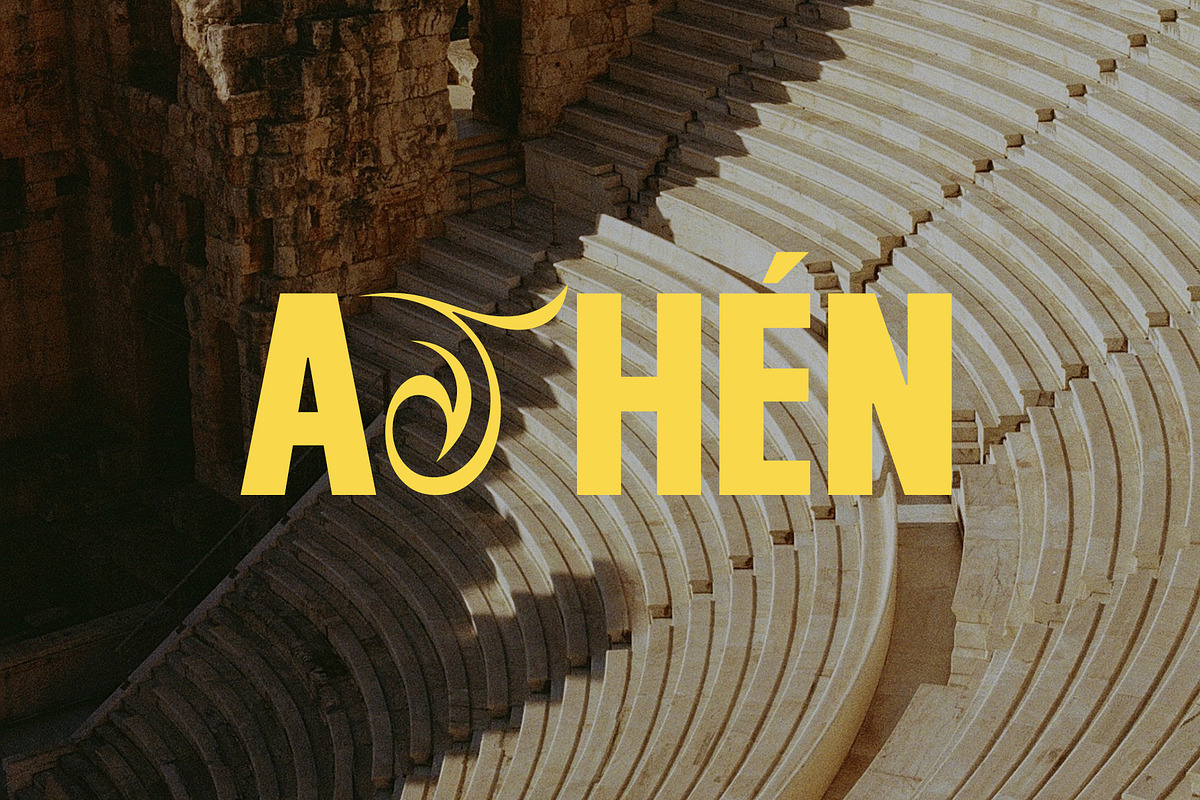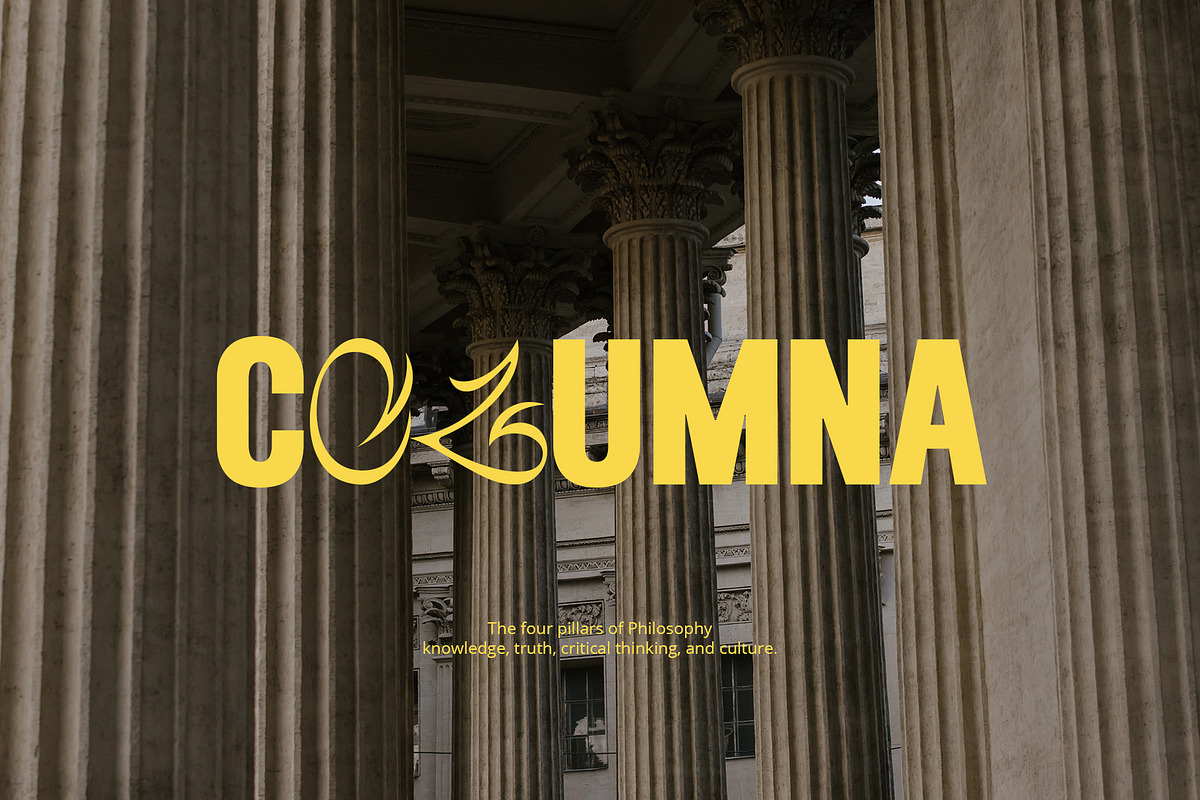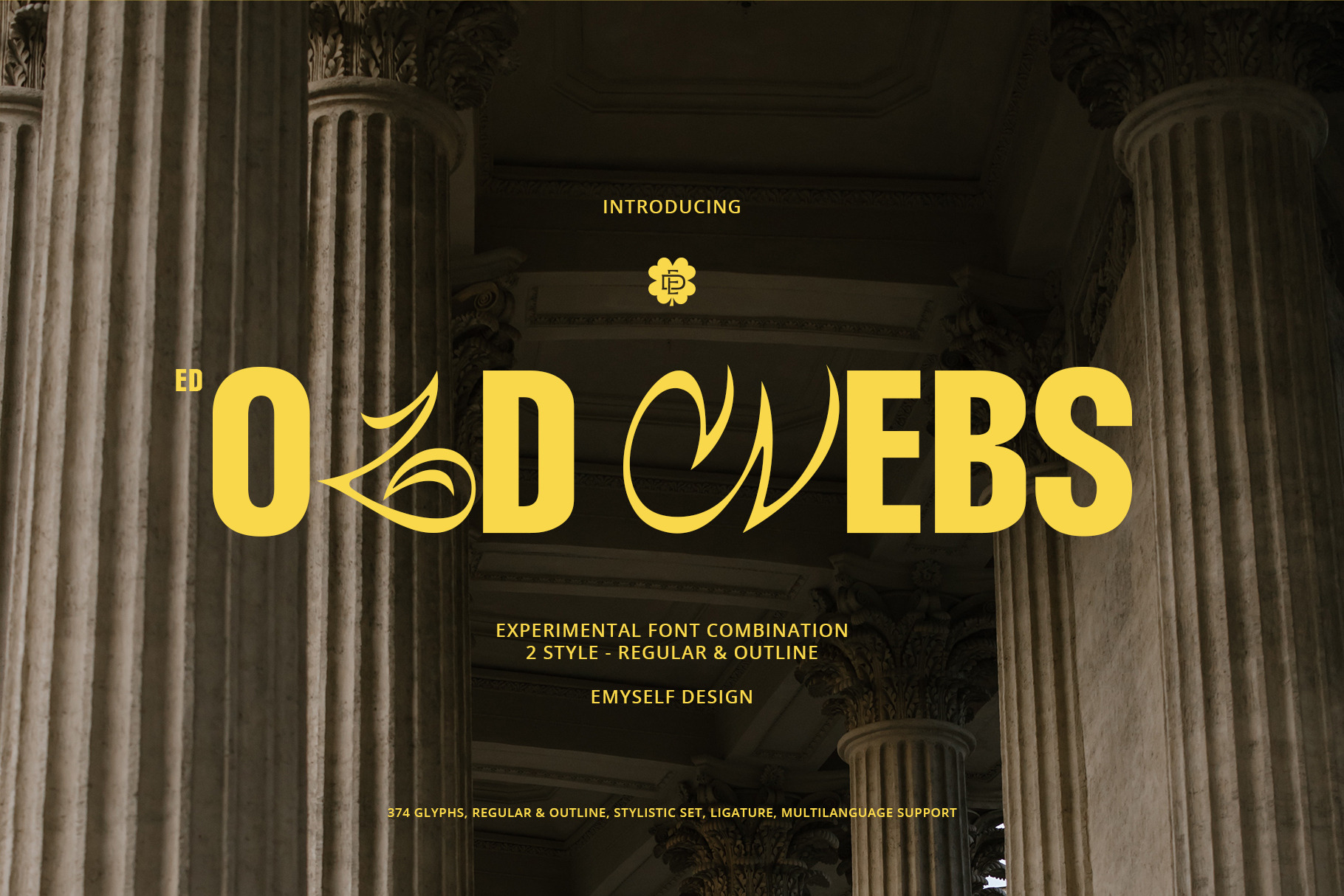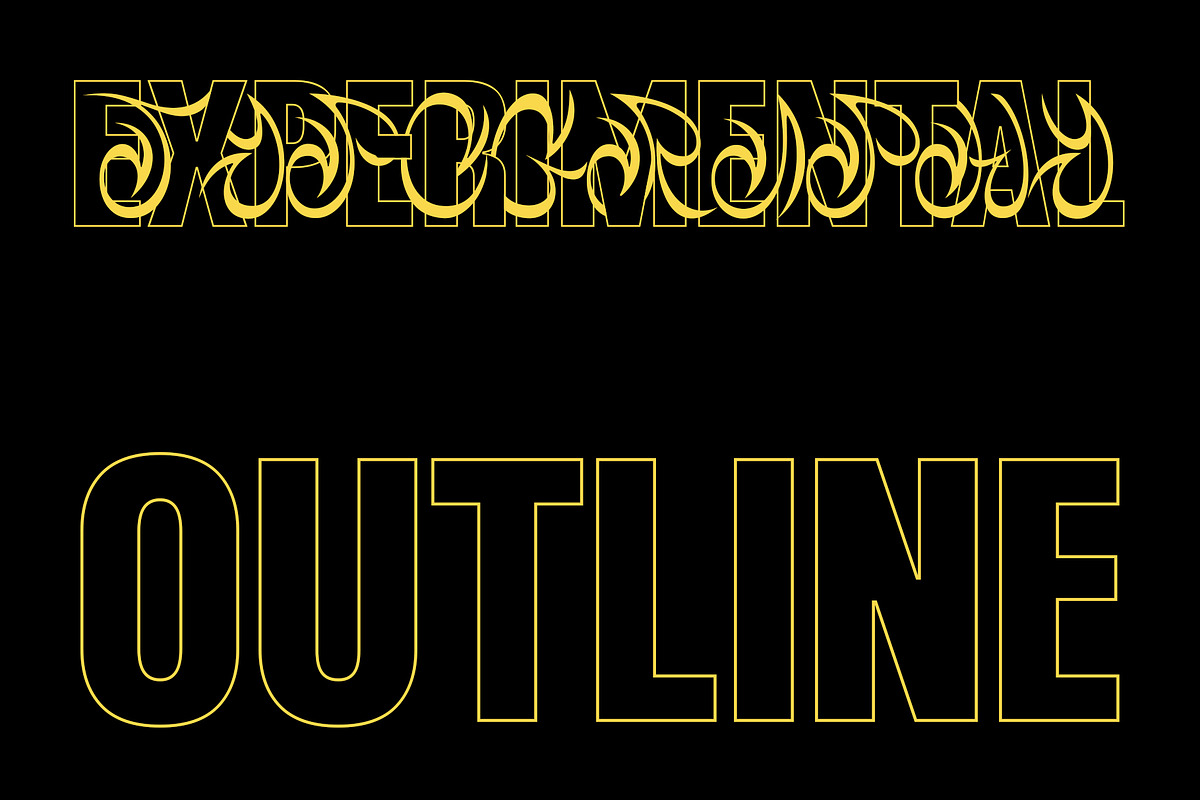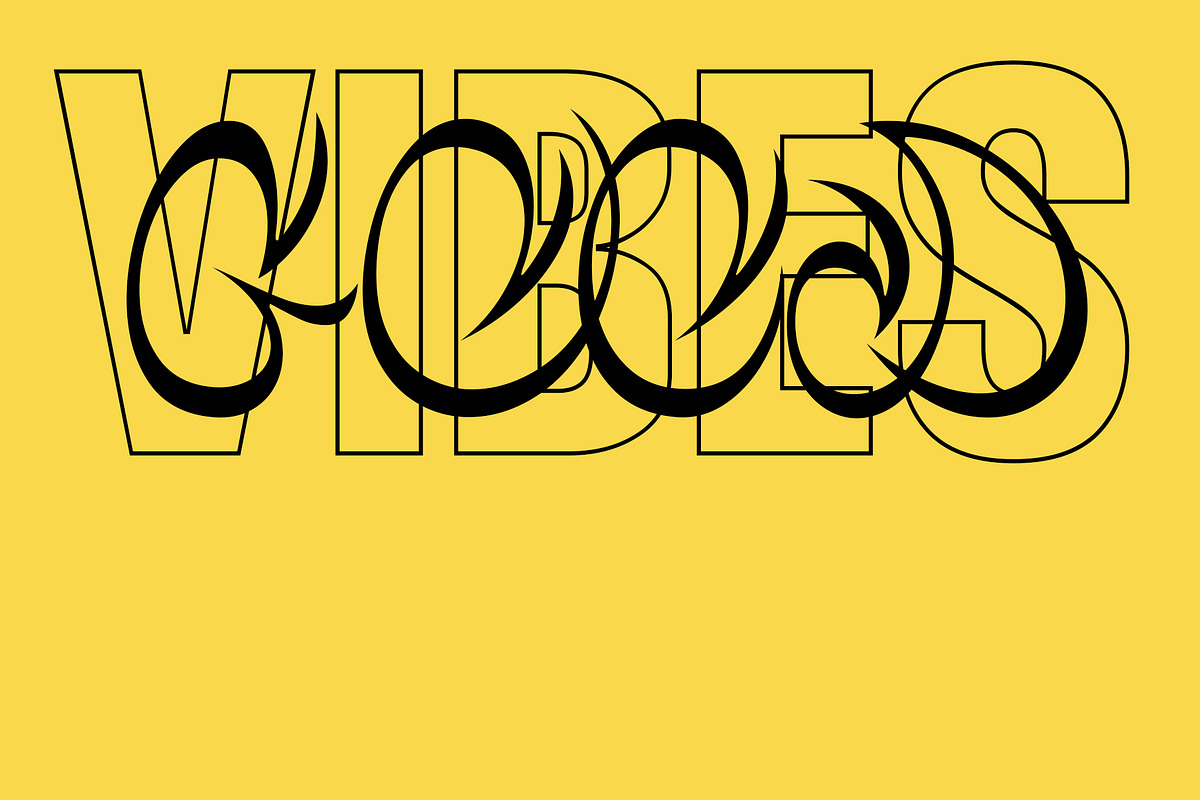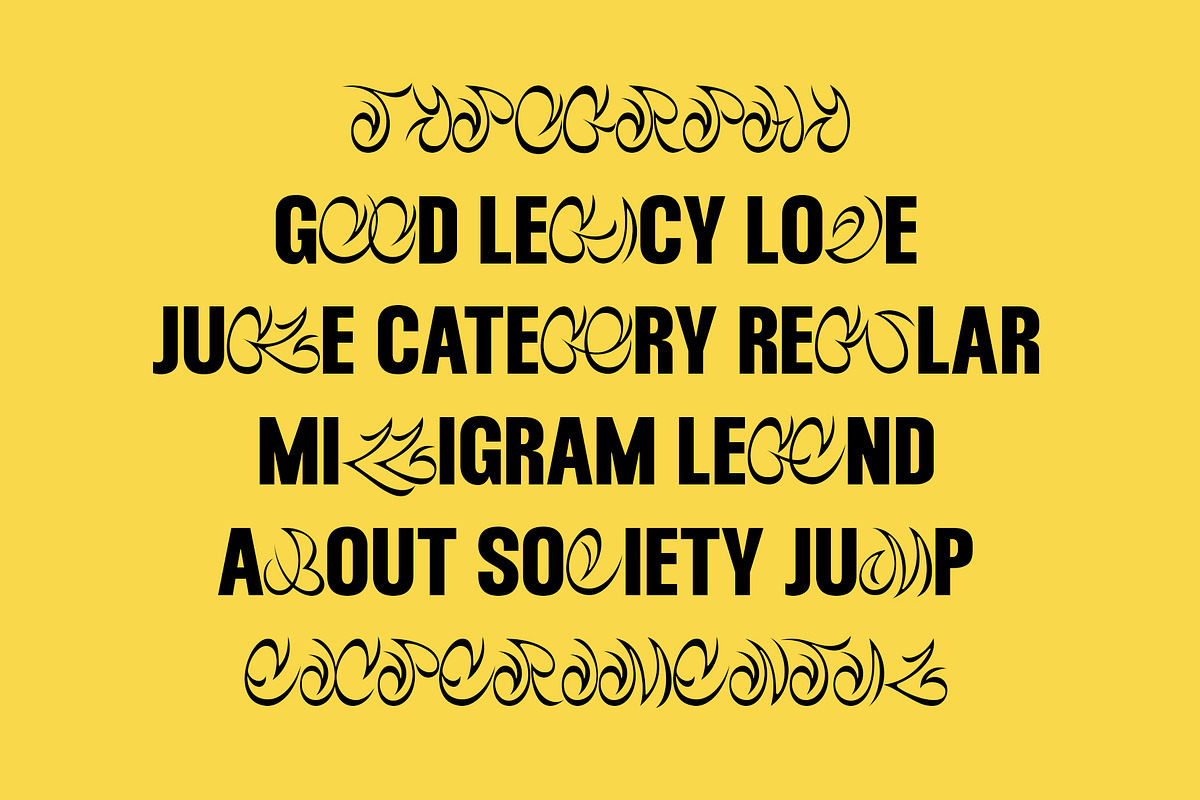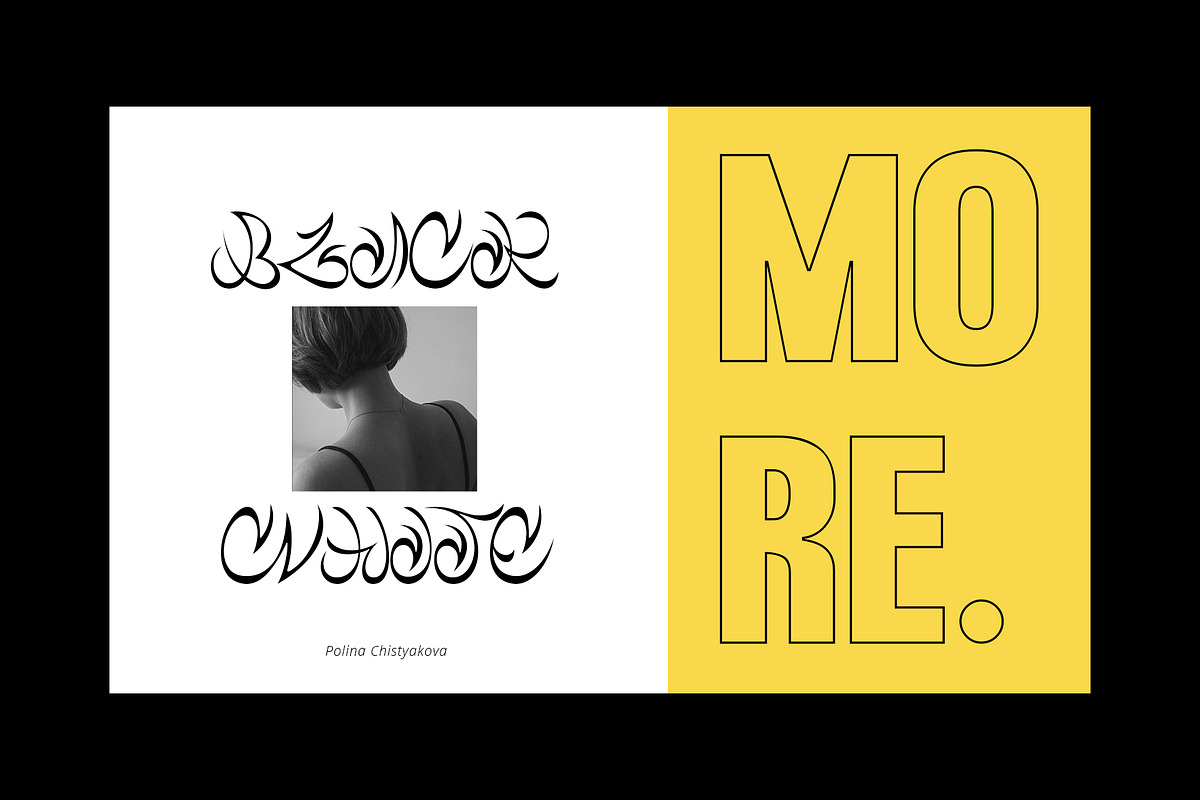
ED Old Webs - Font Combinations
Old Webs is an experimental font that combines 2 very different font styles. The first styled font is inspired by the Hawaiian tattoo motif which is shaped like a wave, and sharp, while the second styled font is a sans font which has a clean and modern look. The combination of both styles creates a unique combination. and this font also has 2 views: plain and outline, to make it easier to be creative with this font. his font has several features such as ligatures, alternative characters, and multi-language support.
This font is perfect for your design needs such as magazines, books, posters, packaging designs, logos, social media designs, t-shirts, and more.
- Total Glyph : 374
- 2 Style : Plain & Outline
- Punctuation and Marks
- Stylistic set